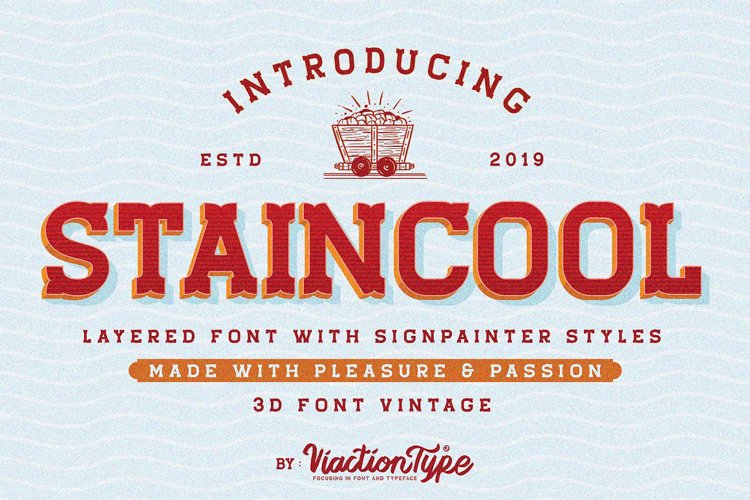
Staincool Base Font
New product Staincool Layered Font with retro style. Inspired by the artist's sign painter style, there are 6 layers that are easy to use. This font is perfect for various design purposes such as labels, merchandise, packaging, logotype, sign and more.
Layered Font Staincool consists of 6 layer combinations, namely:
The Staincool font is perfect for modern & vintage themes by adjusting the desired color on the 3D layer.